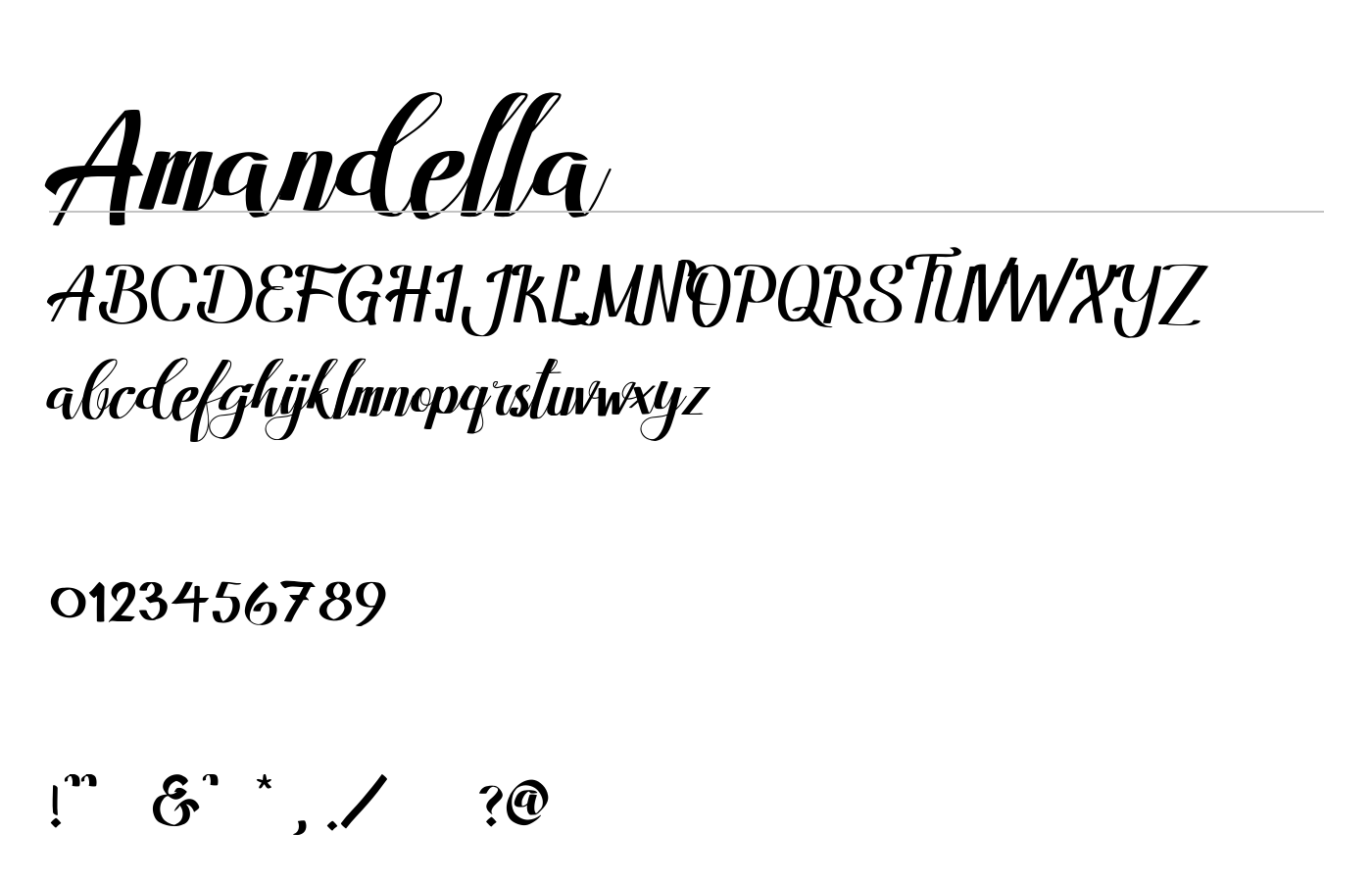
Amandella is an elegant script font featuring a stylish, flowing design with medium contrast and sharp, graceful strokes. Its tall x-height and refined letterforms create a sophisticated yet approachable personality, making it perfect for luxury branding, fashion, and elegant invitations or headlines. This font’s unique blend of classic script charm and modern flair works beautifully in settings that require a touch of refinement and artistic expression.
Amandella Font
About Amandella Font